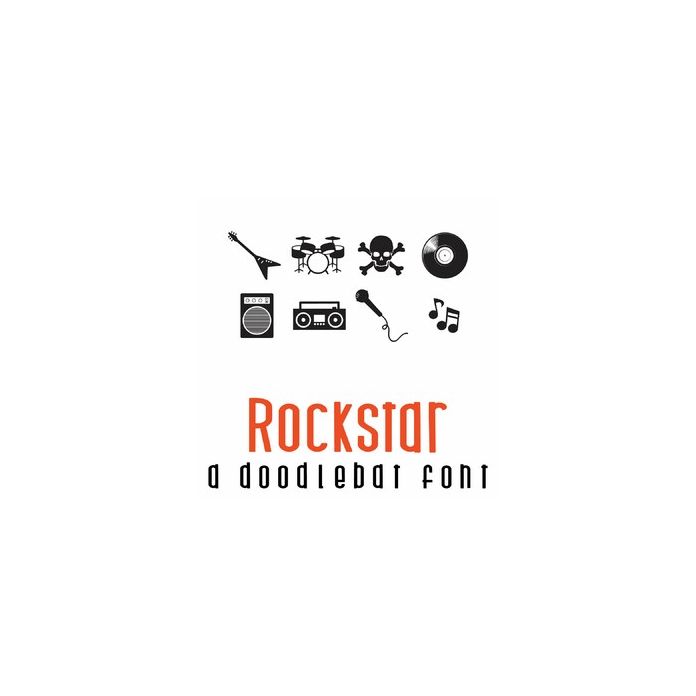
Rockstar Doodlebat Font
This fun doodlebat font features 26 rock n' roll themed images. Perfect for cards, crafts, gifts, decor, scrap book pages, planner stickers and more!